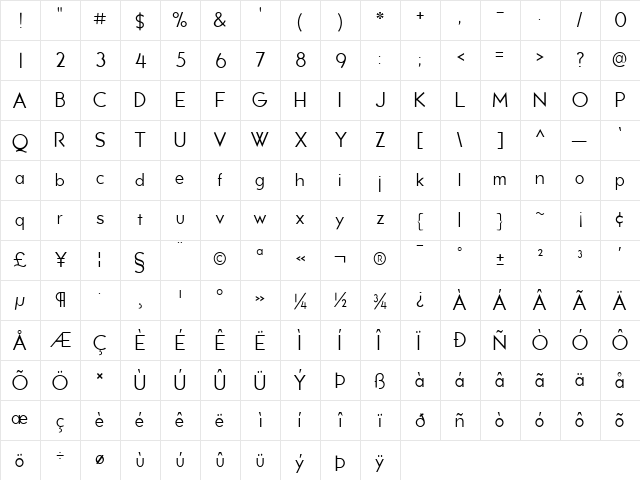
LionelTextSteam Regular Font Preview
LionelTextSteam Regular
Design Context for LionelTextSteam Typeface
LionelTextSteam takes a measured approach to typography — its balanced proportions and neutral character make it a reliable workhorse for both digital and print work.